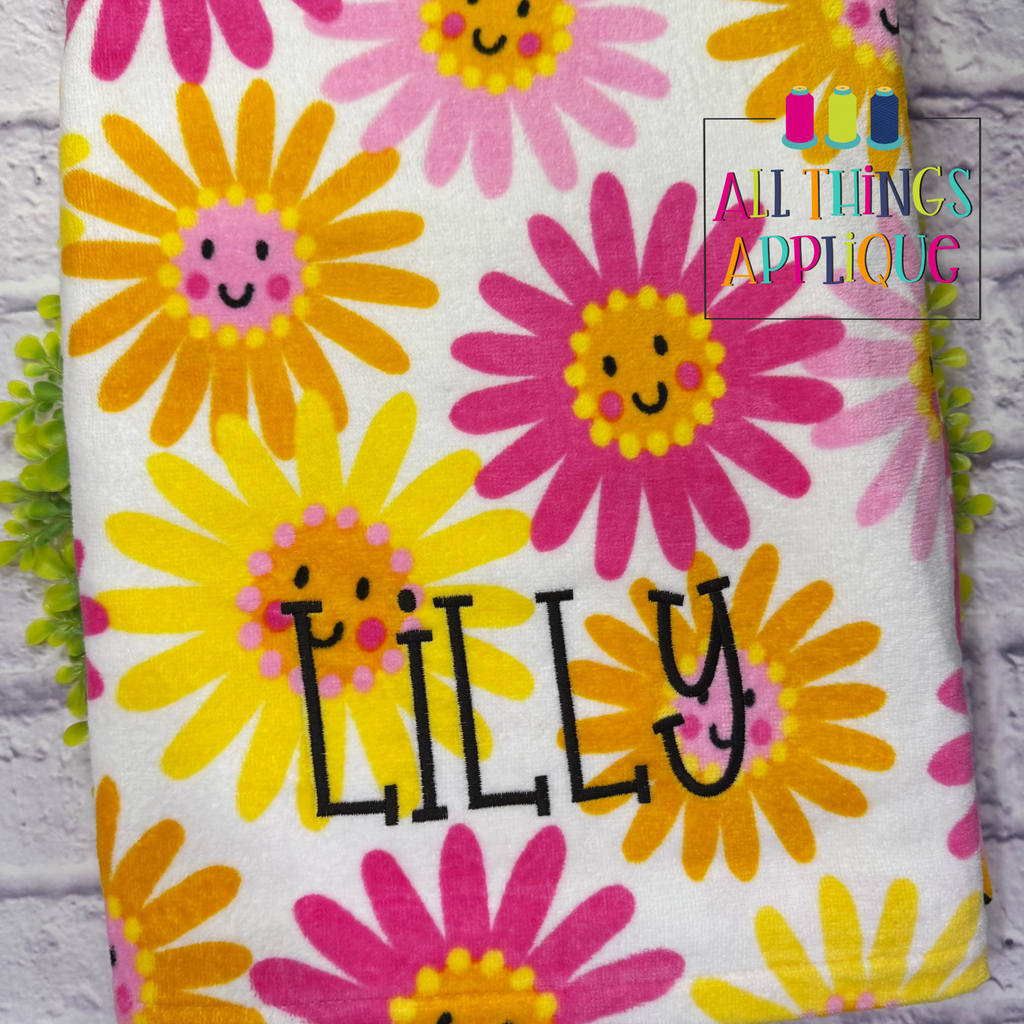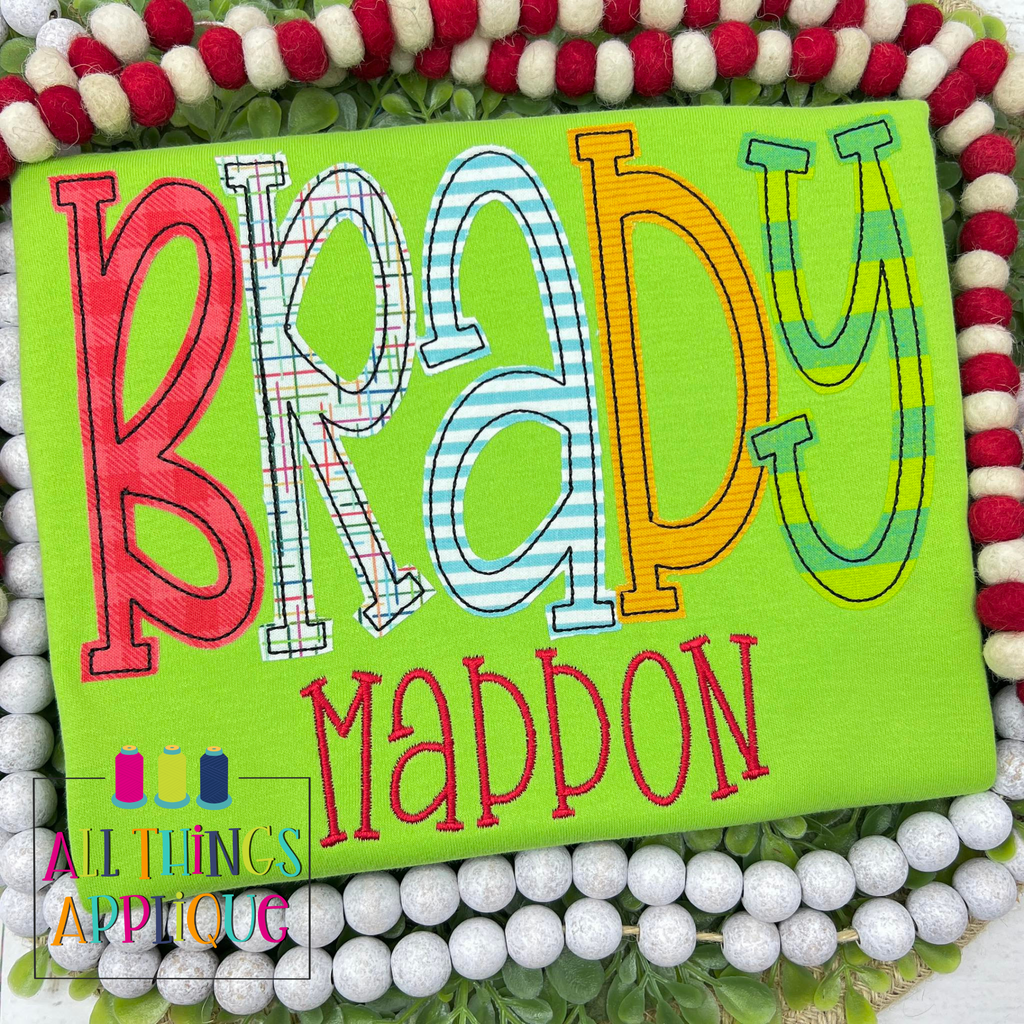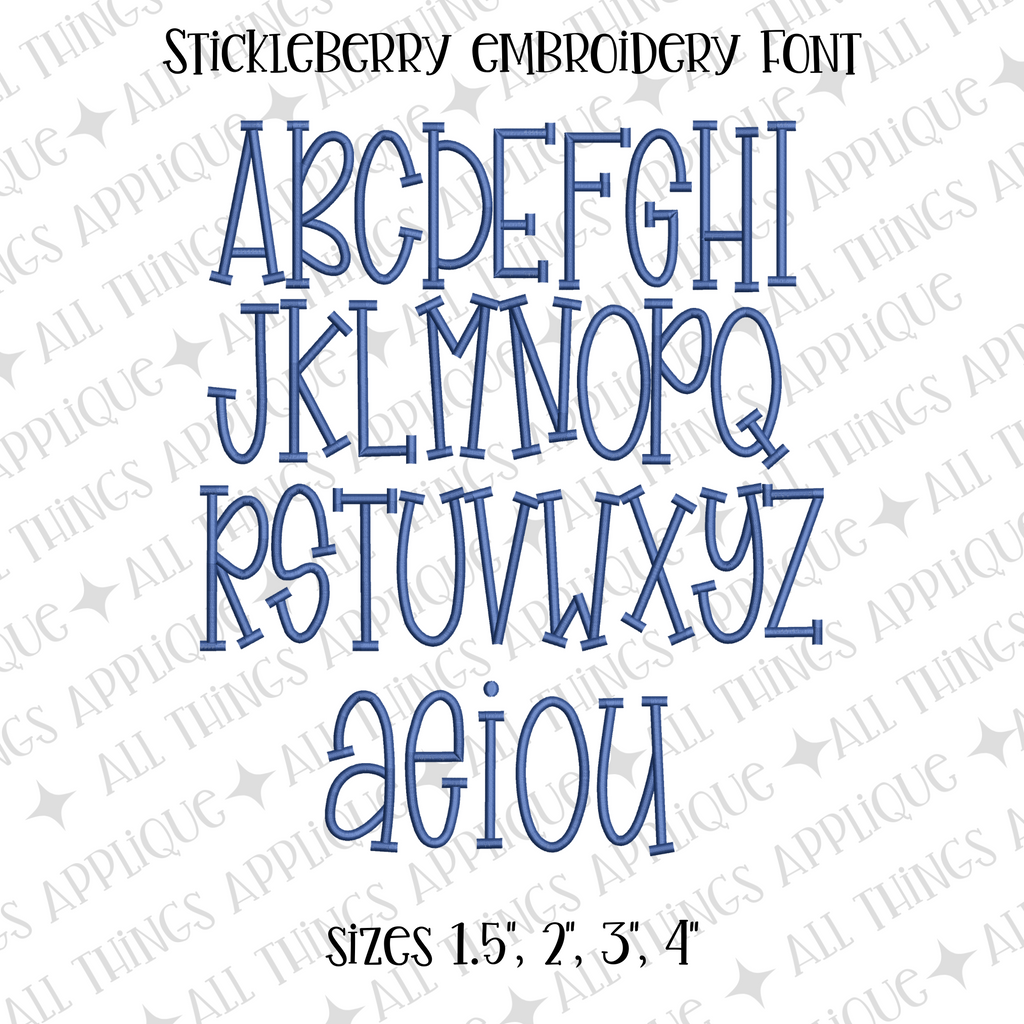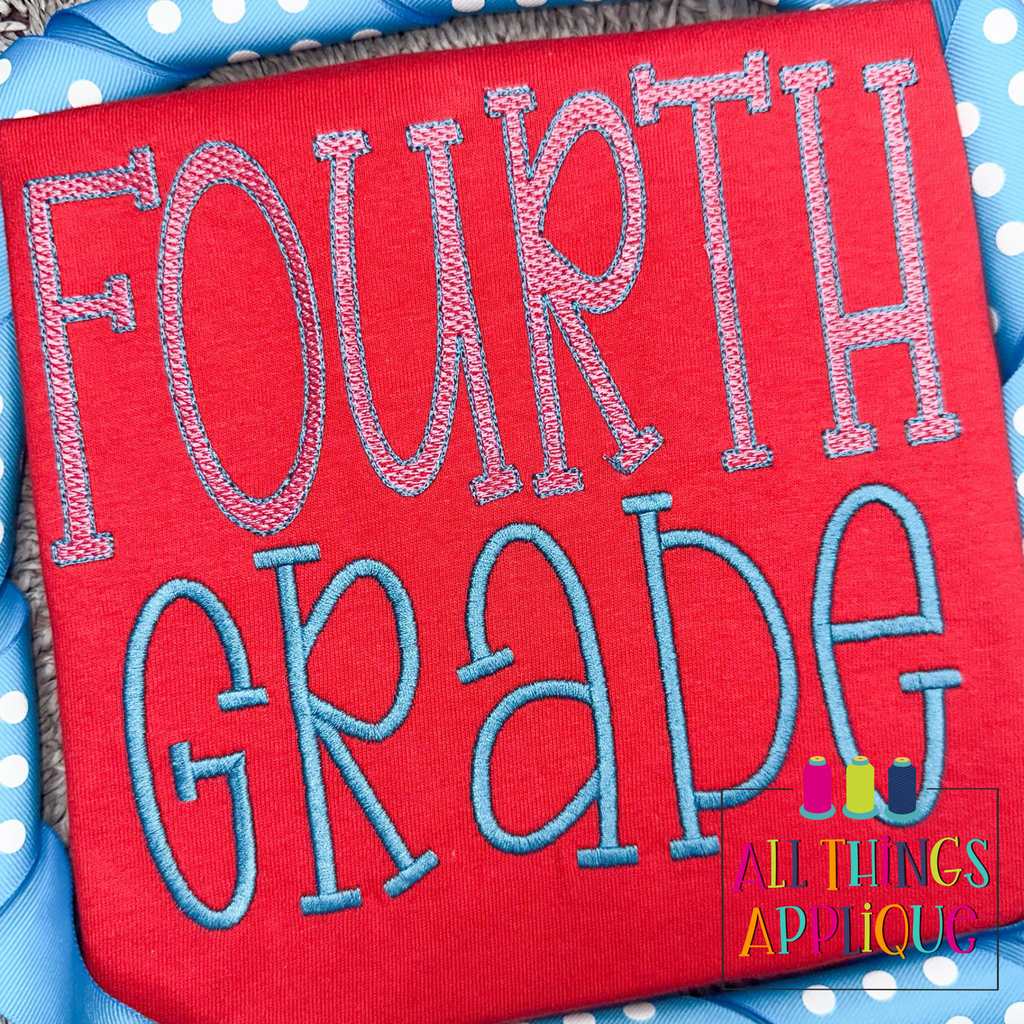
Stickleberry Embroidery Font
About the Stickleberry Embroidery Font This adorable serif font is the perfect compliment to our Stickleberry Applique Alpha and Sketch Stitch Font!  It includes 26 uppercase letters and 5 lowercase vowels allowing you to mix and match your name style.  Stickleberry Sketch Stitch Font Stickleberry Applique Alpha - Bean Stickleberry Bundle - Applique Alpha, Embroidery Font AND Sketch Stitch Font This font includes the BX format which turns this font into a keyboard font.     Sizes included in Download   Capital Letter Size 1.5" 2" 3" 4"     Quality Assurance All of our designs are manually digitized and tested by an experienced team of professional embroiderers to ensure each design is of high quality and very easy to use. Designs are available immediately for download and are guaranteed/supported for a minimum of one year as well as a copy kept in your store profile for that amount of time as well.      Supported Formats PES HUS JEF SEW DST VIP VP3 EXP XXX BX ✓ ✓ ✓ ✓ ✓ ✓ ✓ ✓ ✓ ✓